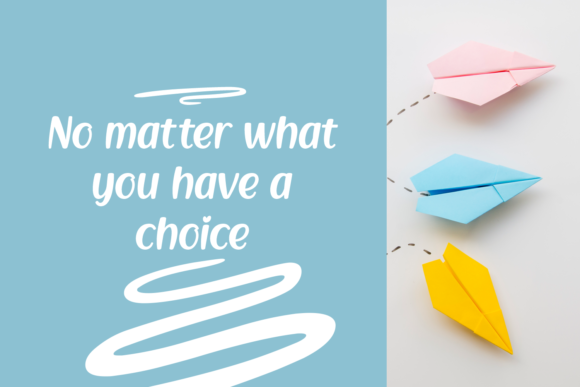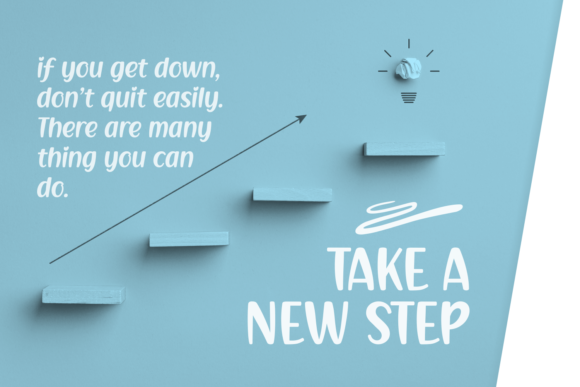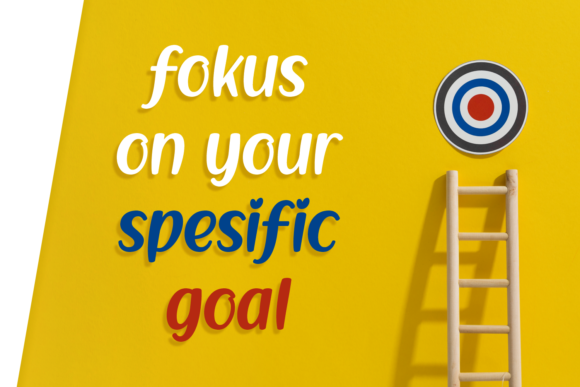
Write Your Goal Font
About Write Your Goal Font
Write Your Goal is a sweet and casual handwritten font. Dainty and joyful, this font will be ideal for writing wedding invitations, cards or any other design that may need a personalized touch!